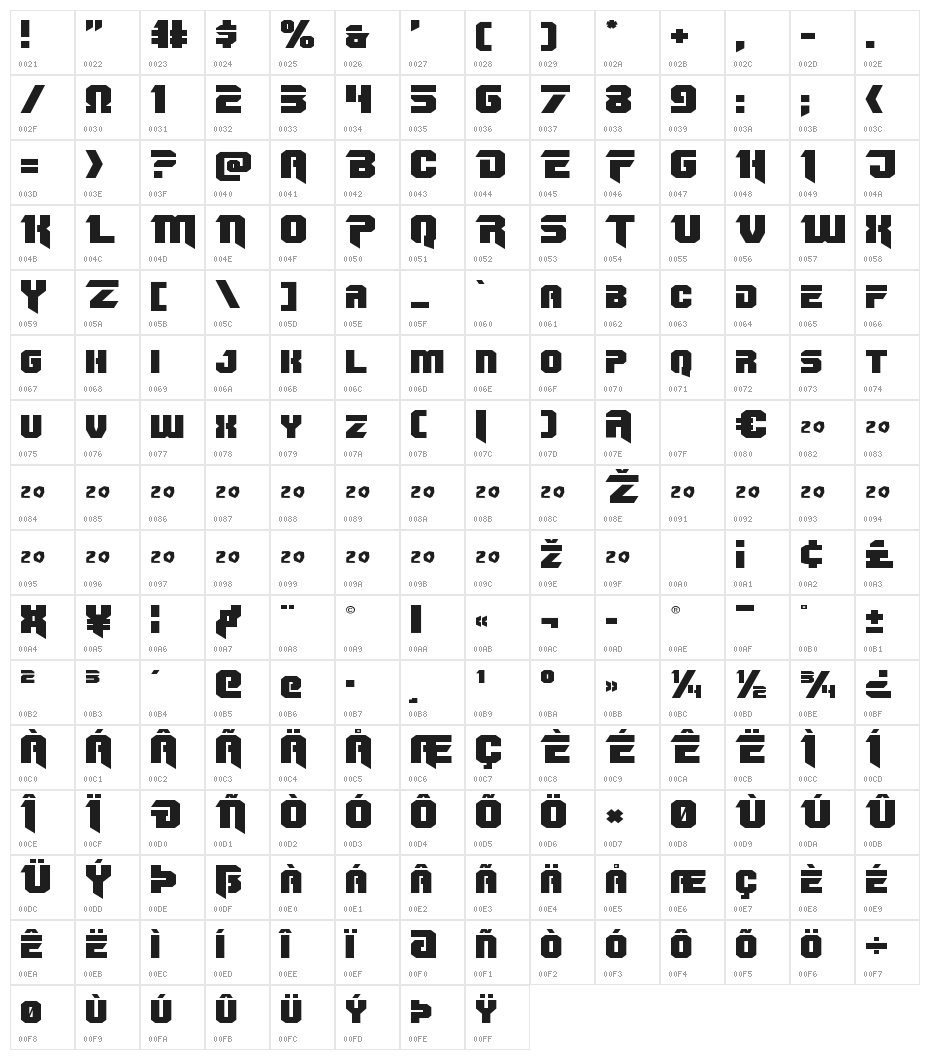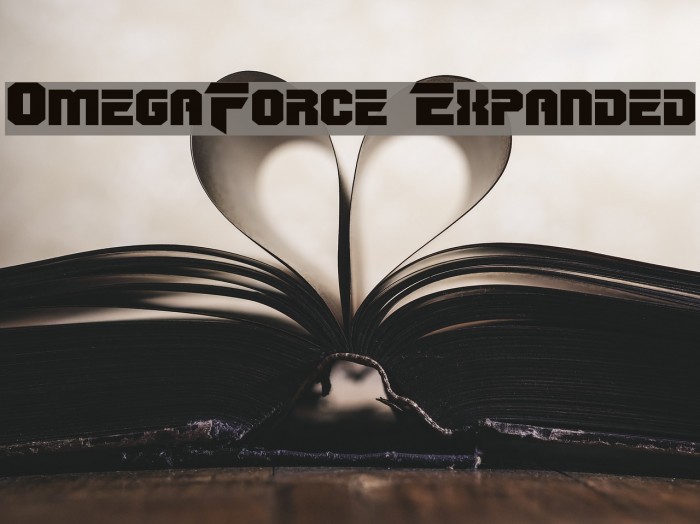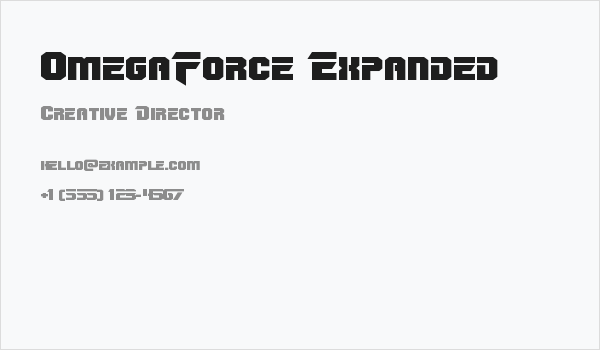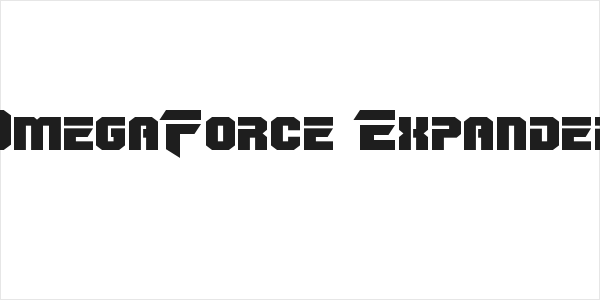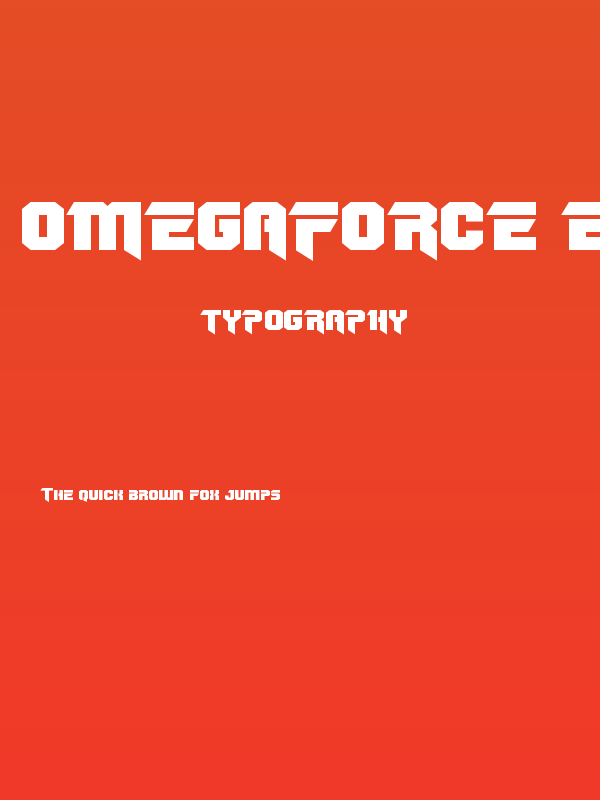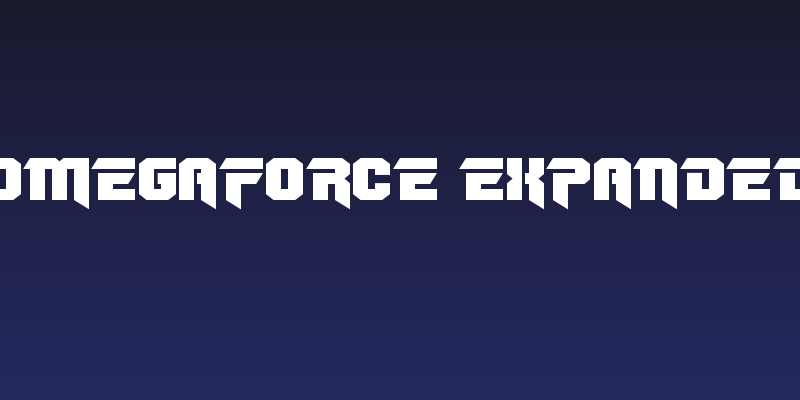
OmegaForce Expanded Font
OmegaForce Expanded Description
This font features a bold, geometric design with a futuristic and industrial feel. The characters are constructed with sharp angles and straight lines, giving it a strong and assertive appearance. The uppercase and lowercase letters maintain a consistent style, with a blocky and robust structure. The numbers and special characters follow the same design principles, ensuring uniformity across all glyphs. This font's expanded width and heavy weight make it ideal for impactful and attention-grabbing designs.
| Proposed Projects | Ideal for sci-fi themed projects, video game titles, posters, and branding that requires a strong, modern look. |